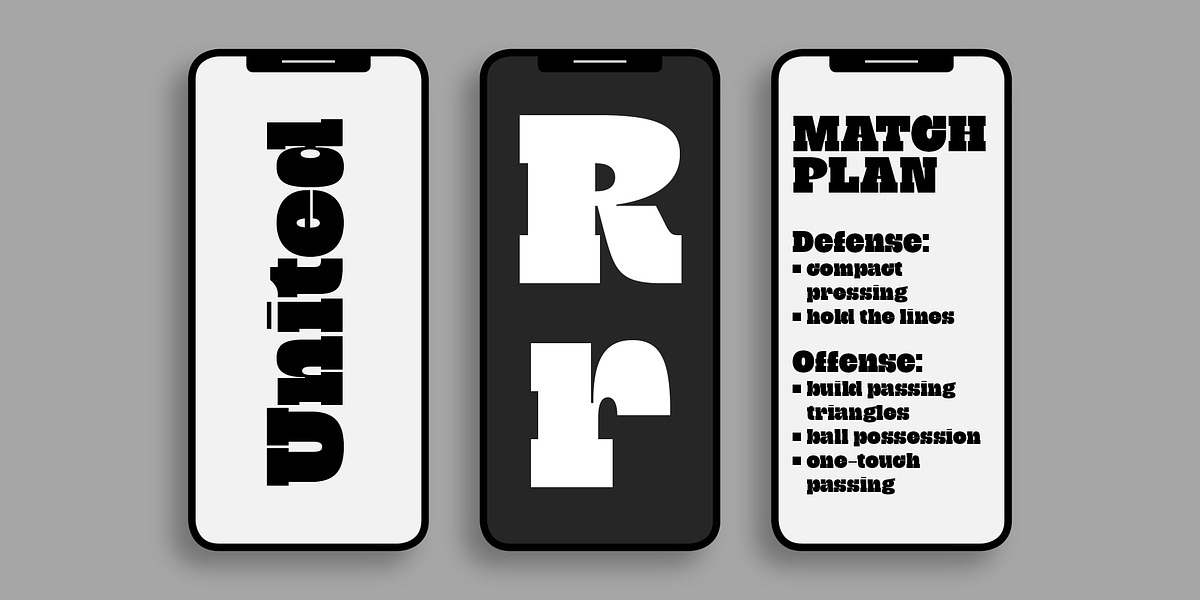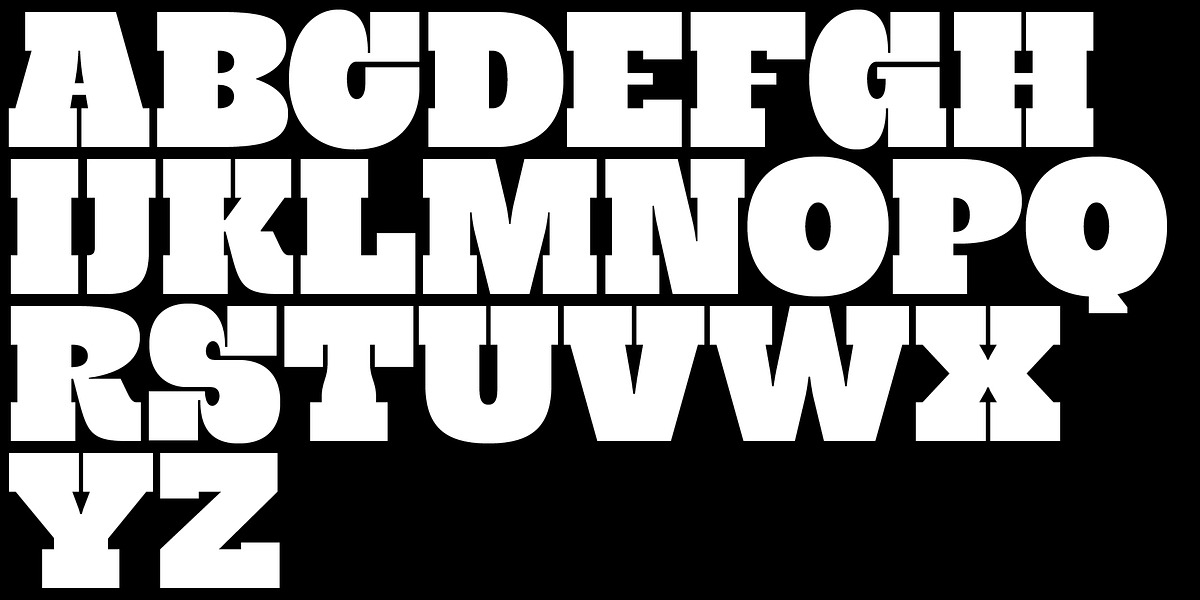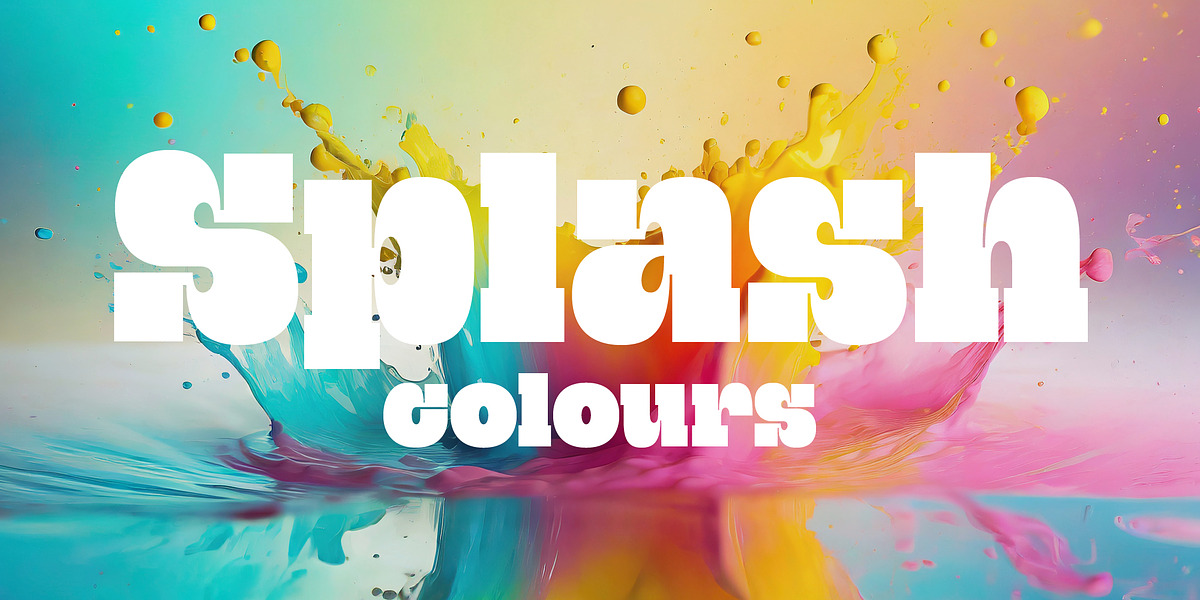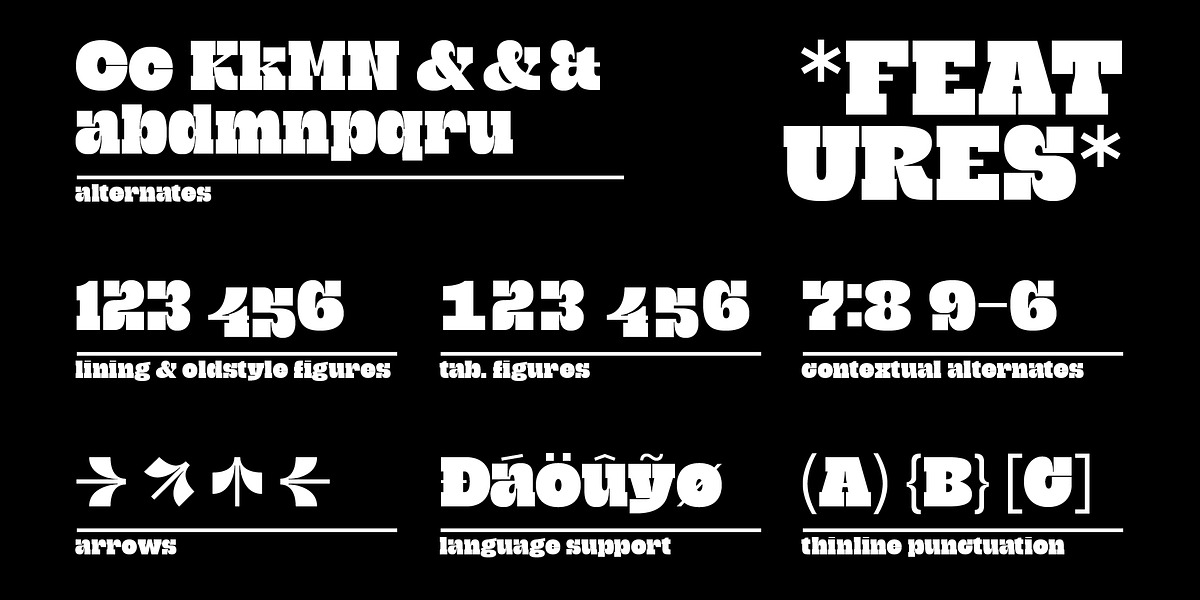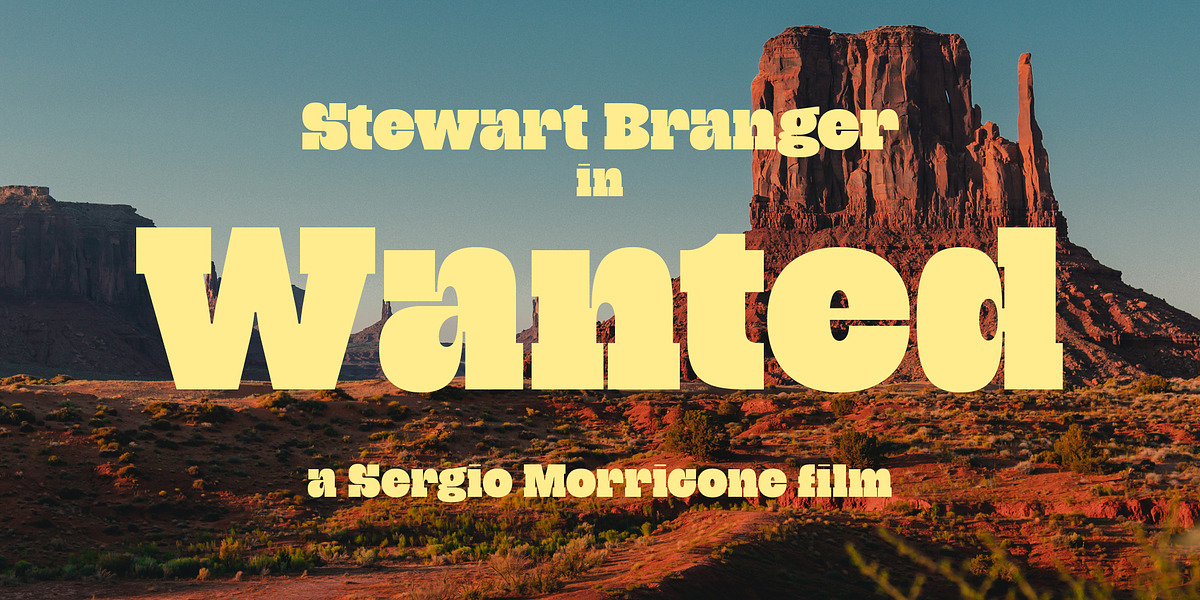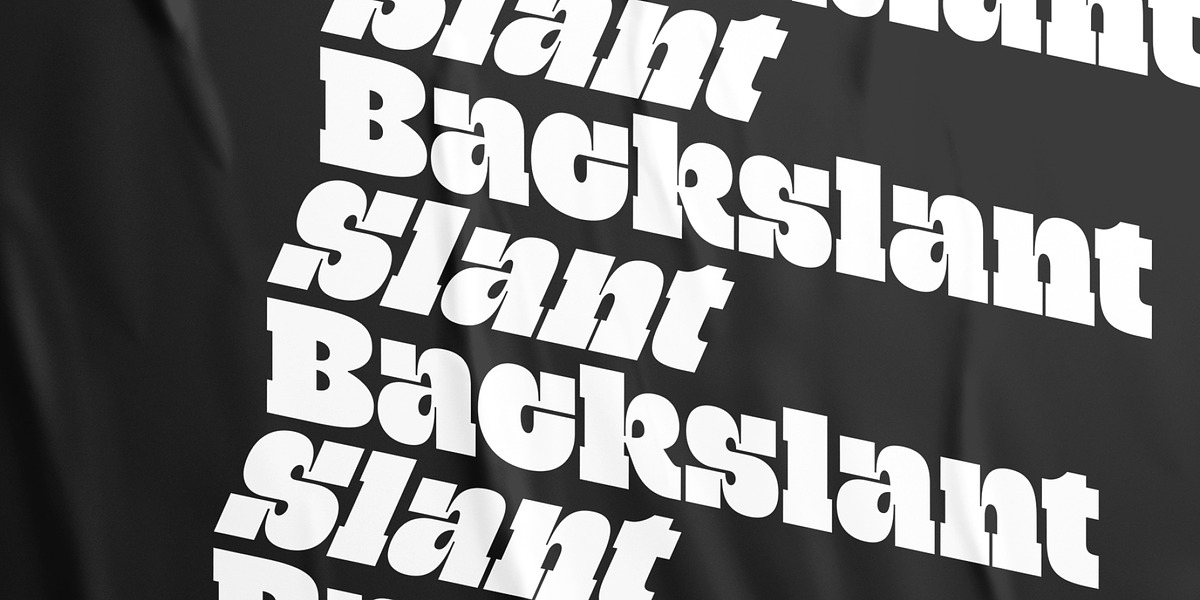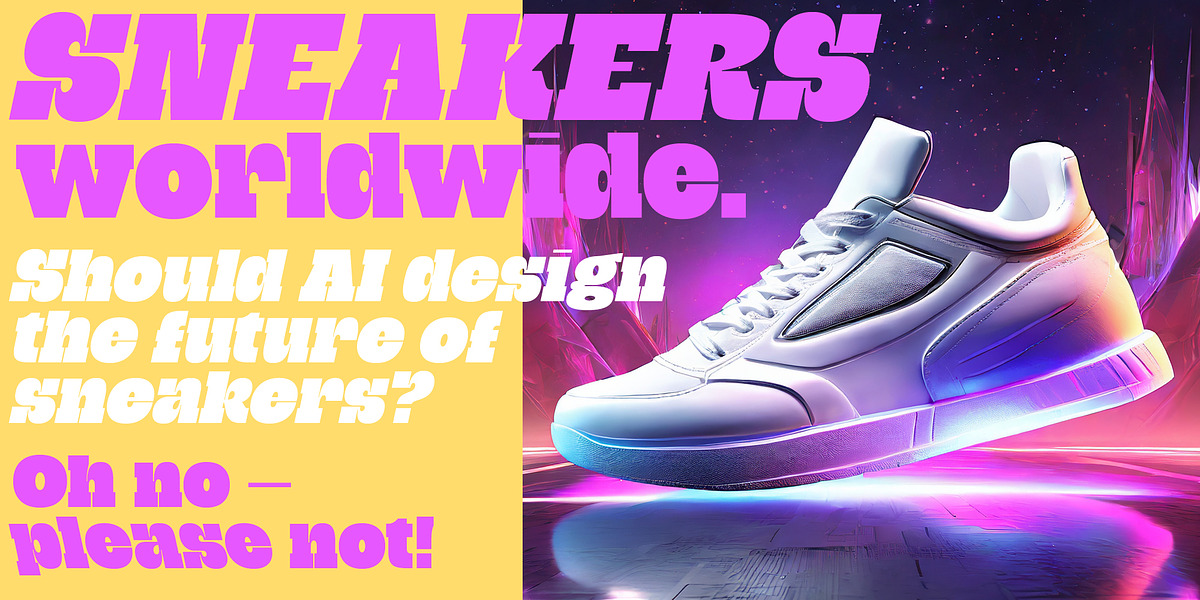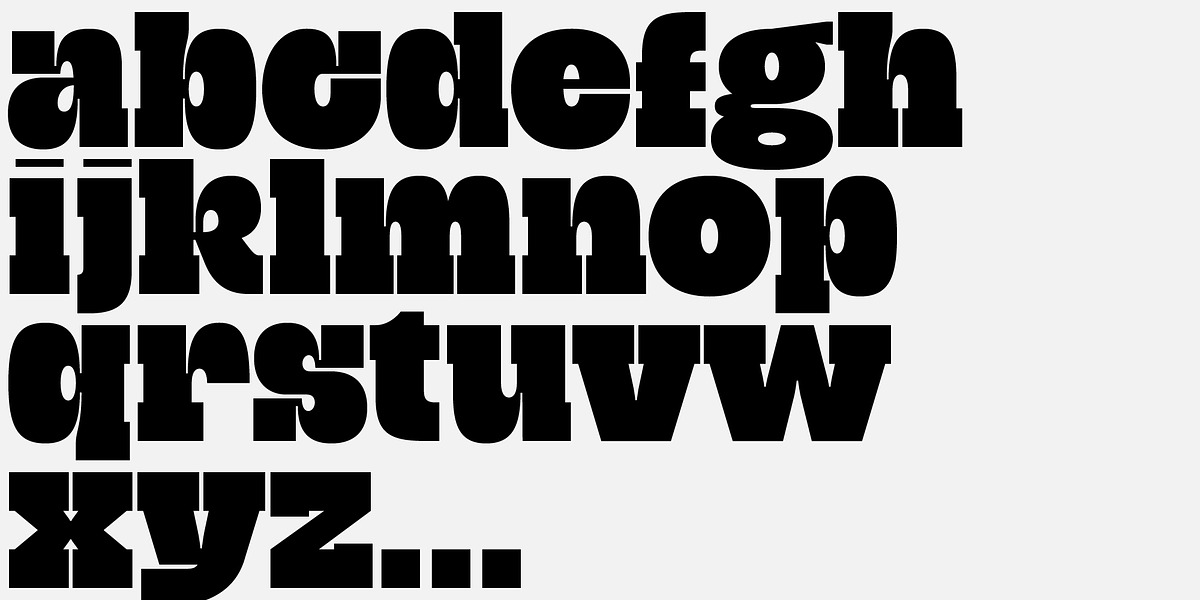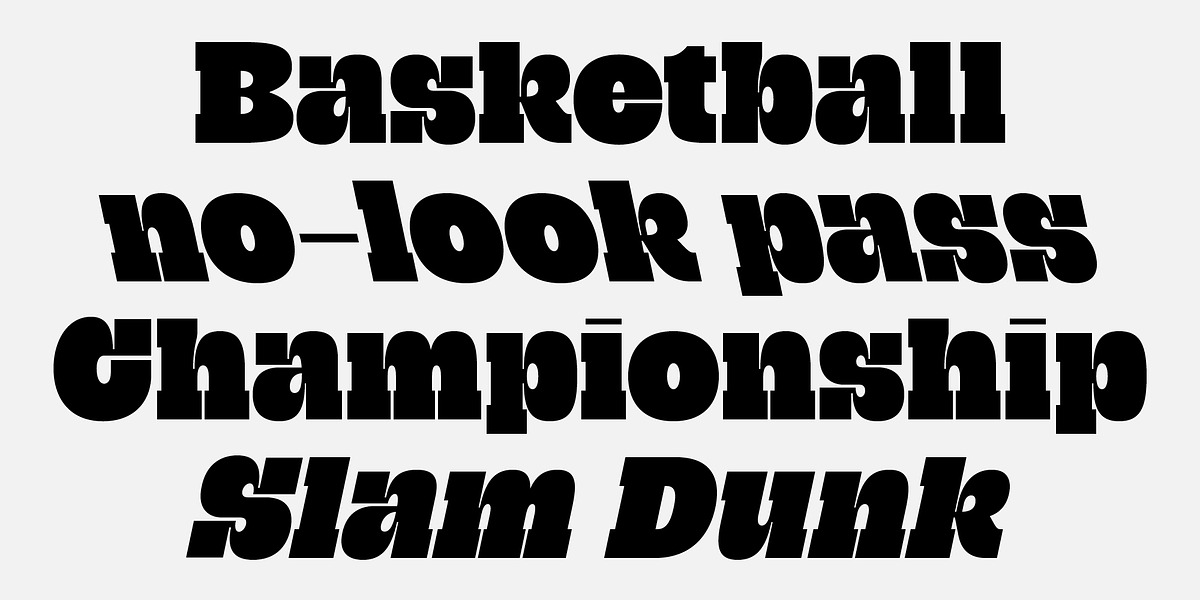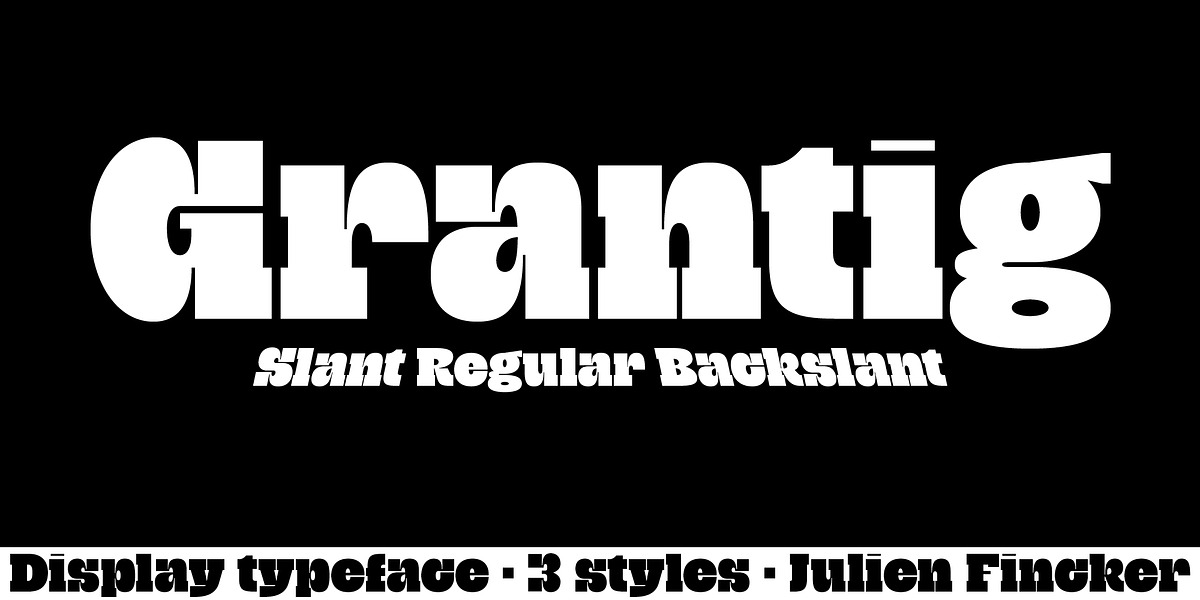
Grantig
Grantig is a bold and expressive western slab serif typeface inspired by the opening titles of classic Westerns. Its massive serifs and strictly rounded curves evoke the image of a grumpy Western hero, creating a strong visual impact. Grantig excels at crafting eye-catching headlines for various applications like editorial design, packaging, and advertising. The font includes alternate characters and supports a wide range of Latin-based languages, making it versatile and suitable for diverse projects.